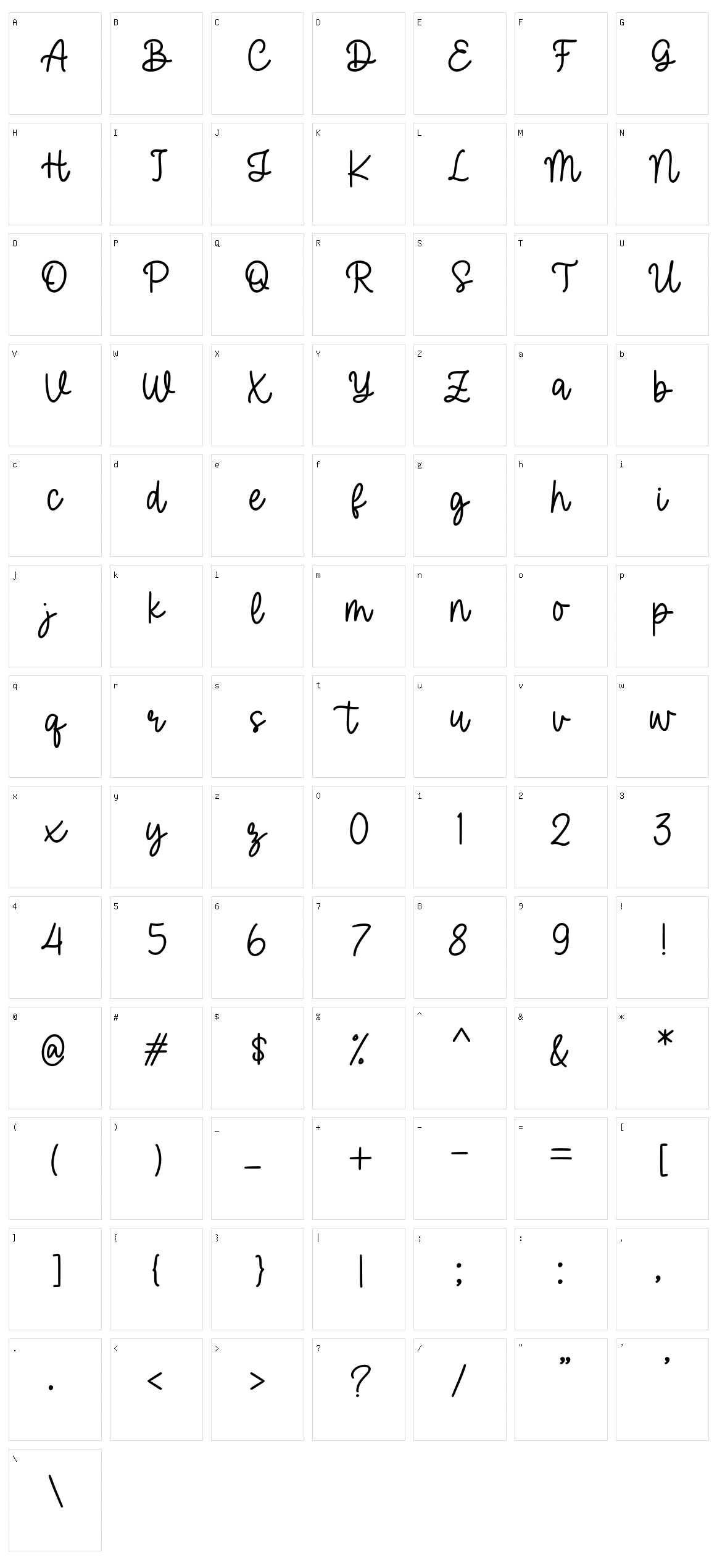
The free font Halmera is carefully designed by Alpaprana Studio, showcasing a thoughtful balance of creativity and usability and falls under the Script font style. When you download the ZIP file, it contains only 42.81 KB of font files, making it lightweight and quick to download. Please review the license details below to understand permitted usage and distribution rights. If license information is not available, we recommend using this font for personal projects only or contacting the author directly for commercial usage permissions.